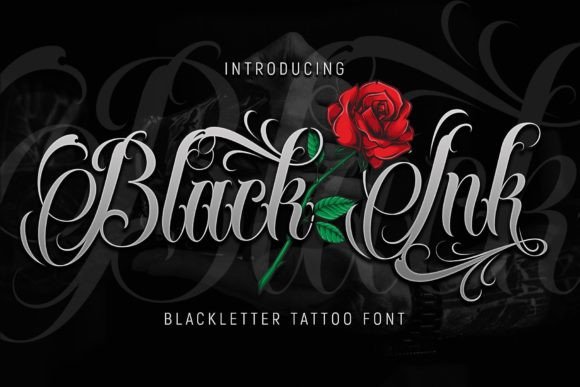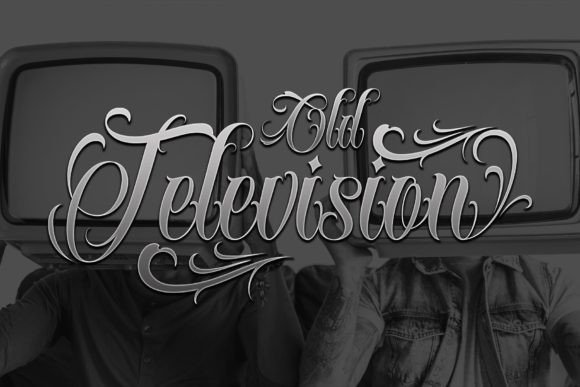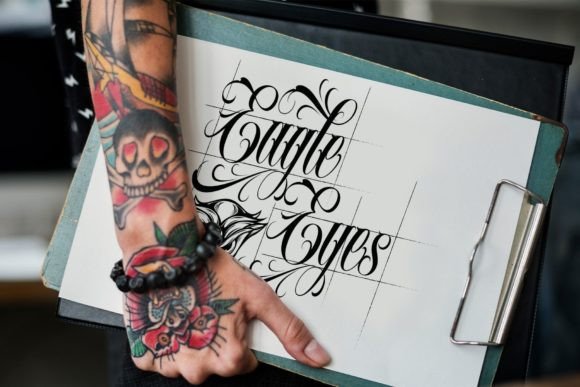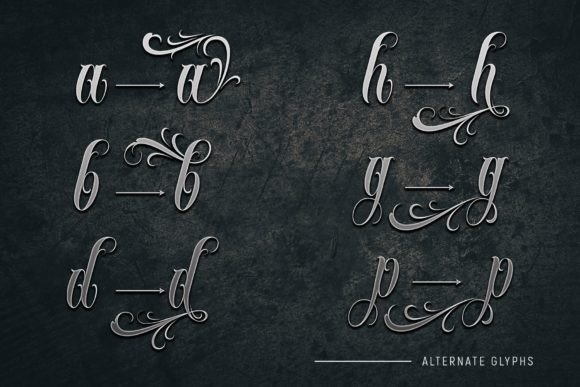
Black Ink Font: A Bold Blackletter Font for Tattoo & Logo Design
About the Black Ink Font
Crafted with precision, the Black Ink Font is ready to bring your ideas to life. Black Ink is a contemporary blackletter tattoo font that feels right at home on logos, t-shirt designs, posters, flyers, and other brand identity items. Add it confidently to your projects, and you will love the results.
Black Ink’s bold, slightly rebellious personality makes it ideal for projects needing a strong visual impact, such as edgy apparel branding, punk-rock concert posters, or the logo of a motorcycle club. It excels in headlines, short text blocks, and impactful signage where its unique character shines. However, its intricate details make it unsuitable for body text or UI elements requiring high readability at smaller sizes.
Pairing Black Ink effectively requires considering its strong presence. A clean sans-serif like Open Sans or a geometric sans-serif such as Futura would provide a striking contrast, creating visual hierarchy and balance. For a softer feel, a slightly rounded sans-serif might be preferable.
Avoid pairing it with other highly decorative fonts, as this can lead to visual overload. Consider its use sparingly to maintain impact and avoid overwhelming the design.
Black Ink Font Usage Examples
Black Ink Font Example